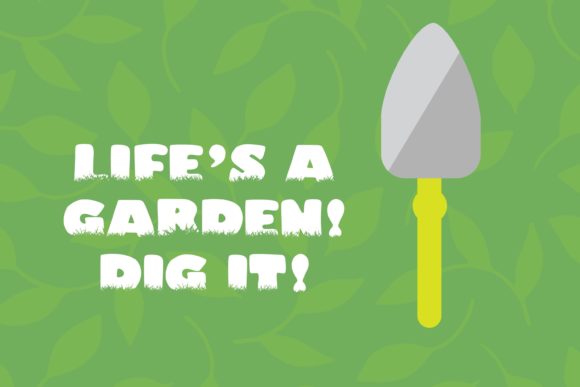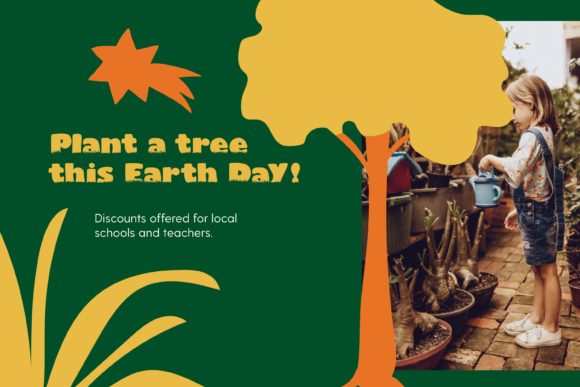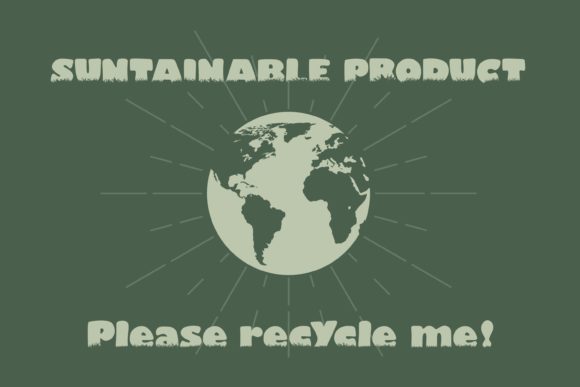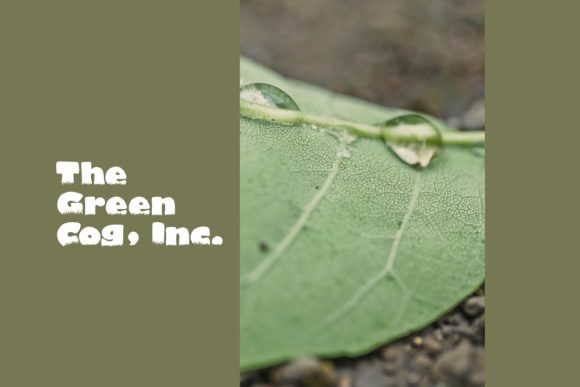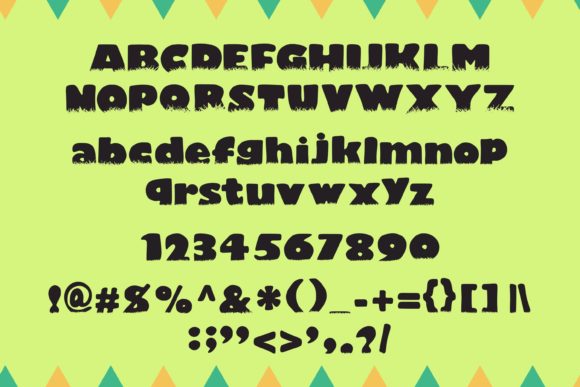
Introducing Awesome Meadow Font: The Perfect Choice for Fun and Playful Designs
Are you looking for a font that embodies playfulness and authenticity? Look no further than Awesome Meadow Font! This fun and decorative font is perfect for any children’s activity or school project that requires a touch of whimsy and creativity. In this article, we’ll explore the features and benefits of Awesome Meadow Font, and why it’s a must-have for designers and crafters.
What is Awesome Meadow Font?
Awesome Meadow Font is a unique and playful decorative font that is designed to bring a sense of fun and excitement to any project. Its playful and authentic style makes it perfect for use in children’s books, school projects, crafts, and other creative endeavors. The font features bold and rounded letters with a friendly and approachable feel, making it easy to read and fun to use.
Key Features of Awesome Meadow Font
• Playful and Authentic Style: Awesome Meadow Font has a unique and playful style that is perfect for creating fun and engaging designs.
• Easy to Read: The font features bold and rounded letters that are easy to read, making it perfect for use in children’s books and school projects.
• Versatile: Awesome Meadow Font can be used for a wide range of projects, from crafts and DIY projects to digital designs and marketing materials.
• High-Quality Design: The font is designed with high-quality and precision, ensuring that it looks great in any size or format.
Why Choose Awesome Meadow Font?
There are many reasons why Awesome Meadow Font is the perfect choice for designers and crafters. Here are just a few:
• Perfect for Children’s Projects: The font’s playful and fun style makes it perfect for use in children’s books, activity sheets, and school projects.
• Adds a Touch of Whimsy: Awesome Meadow Font adds a touch of whimsy and creativity to any project, making it stand out from the crowd.
• Great for Branding and Marketing: The font’s unique and playful style makes it perfect for use in branding and marketing materials, such as logos, social media graphics, and flyers.
• Pair it with Other Fonts: Pair Awesome Meadow Font with other fonts to create a unique and interesting design.
• Use it in Digital Designs: Use Awesome Meadow Font in digital designs, such as social media graphics, blogs, and websites.
• Experiment with Colors: Experiment with different colors and textures to add depth and interest to your design.
• Have Fun!: Most importantly, have fun and be creative! Awesome Meadow Font is designed to be fun and playful, so don’t be afraid to experiment and try new things.
Awesome Meadow Font is a fun and playful decorative font that is perfect for designers and crafters looking to add a touch of whimsy and creativity to their projects. With its playful and authentic style, ease of use, and versatility, it’s the perfect choice for any children’s activity or school project. Whether you’re a seasoned designer or a crafty DIY enthusiast, Awesome Meadow Font is sure to inspire and delight. So why wait? Download Awesome Meadow Font today and start creating fun and engaging designs that will stand out from the crowd!